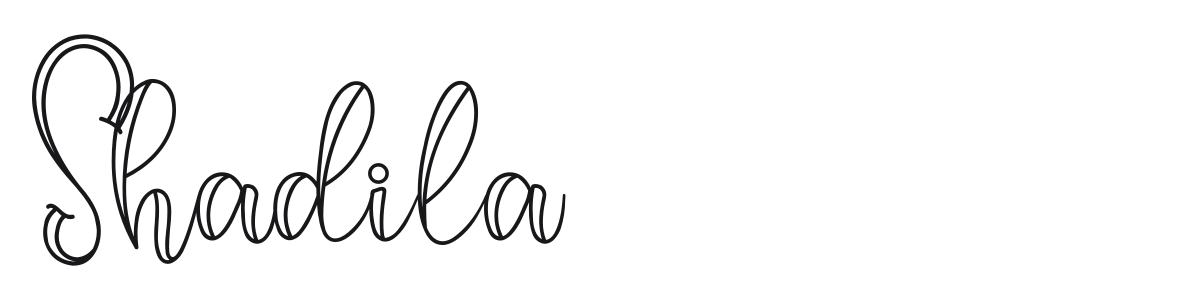
Shadila
Shadila is a flowing monoline connected script with elaborate looping ascenders and descenders that weave gracefully across the line. The near-zero stroke contrast and hairline weight give it an airy, pen-drawn delicacy that reads as romantic and light. It thrives on wedding stationery, packaging, and anywhere that calls for an elegant handwritten touch.